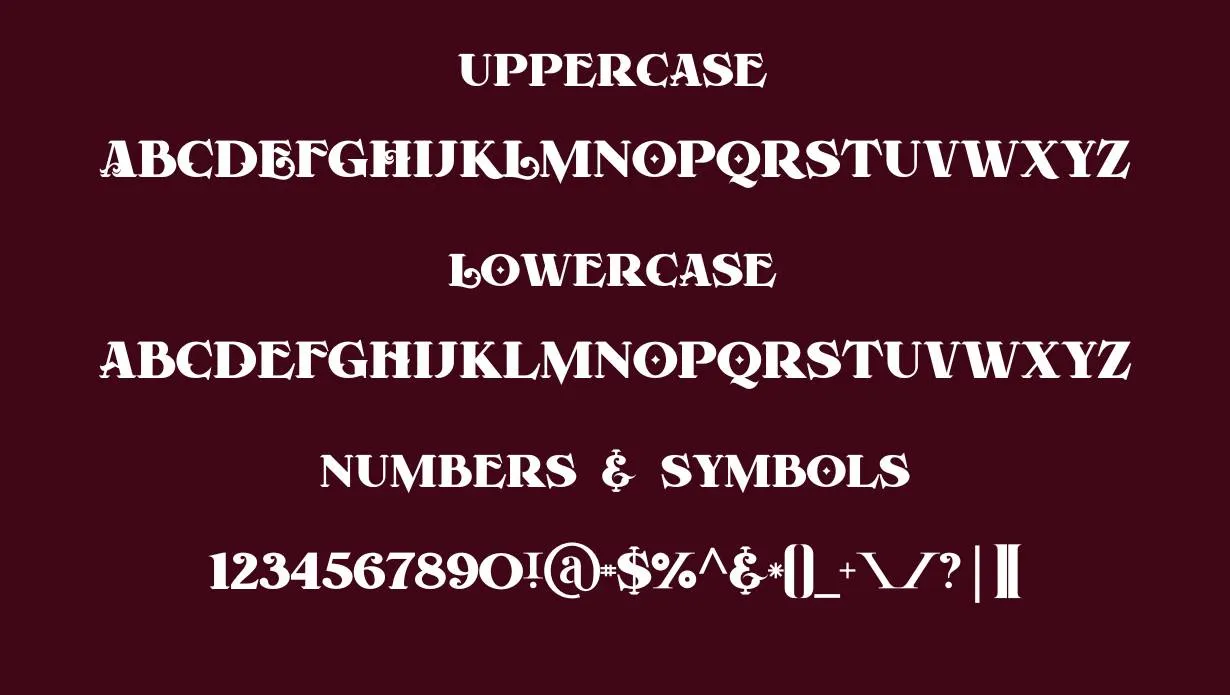
The Forest Font adds a natural and organic feel to your designs, making it perfect for environmental projects, outdoor-themed materials, or anything inspired by the beauty of nature. Its rustic characters convey a sense of the great outdoors.
| Name | Forest Font |
| Designer | David Occhino |